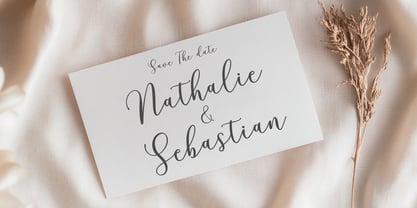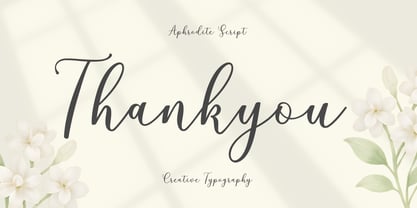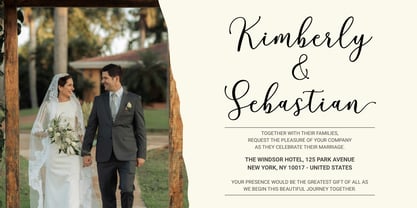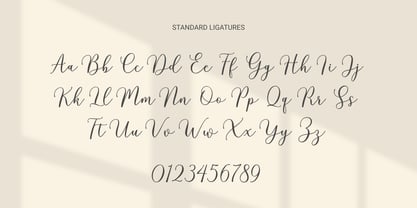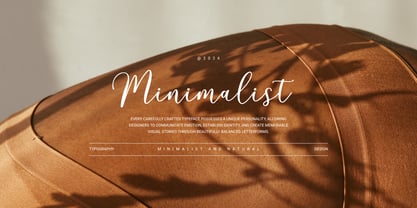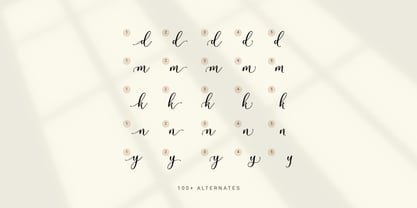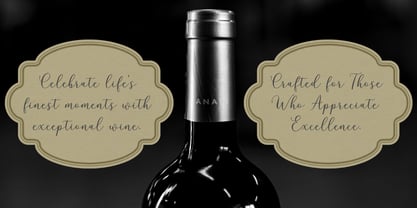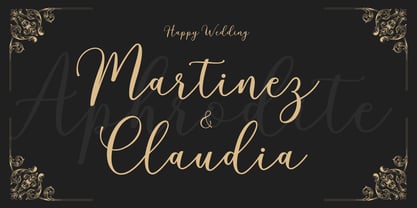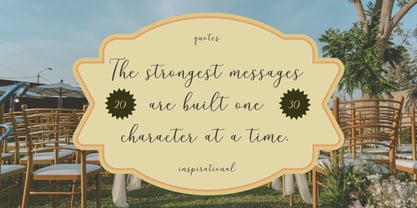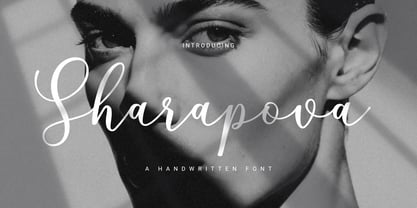
Sharapova
Die Schriftfamilie Sharapova wurde von khaidir entworfen und von Gatype veröffentlicht. Sharapova enthält 1 Stile. Mehr über diese Familie
Sharapova is an organic, handwritten font suitable for branding, signatures, wedding invitations, promotions, product packaging, and other needs. This font is modern, simple, but still authentic. You'll get a full set of lowercase and uppercase letters, numbers and punctuation, multilingual symbols, initial and final lowercase swashes, binders, and extra swashes.